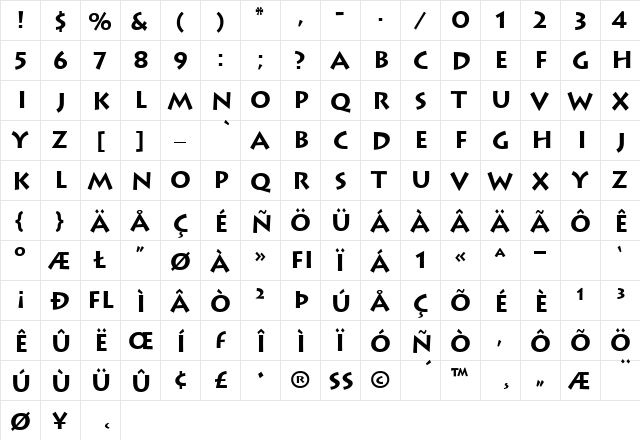
Lithos-Bold Regular Font Preview
Lithos-Bold Regular
Design Context for Lithos-Bold Typeface
Lithos-Bold offers clean, dependable letterforms without strong stylistic allegiance, making it a practical choice for designers who need flexibility. Its bold stroke weight gives it real presence on the page.
Pro Tip: Use Lithos-Bold in both headline and body roles to test its range before committing to a single application.